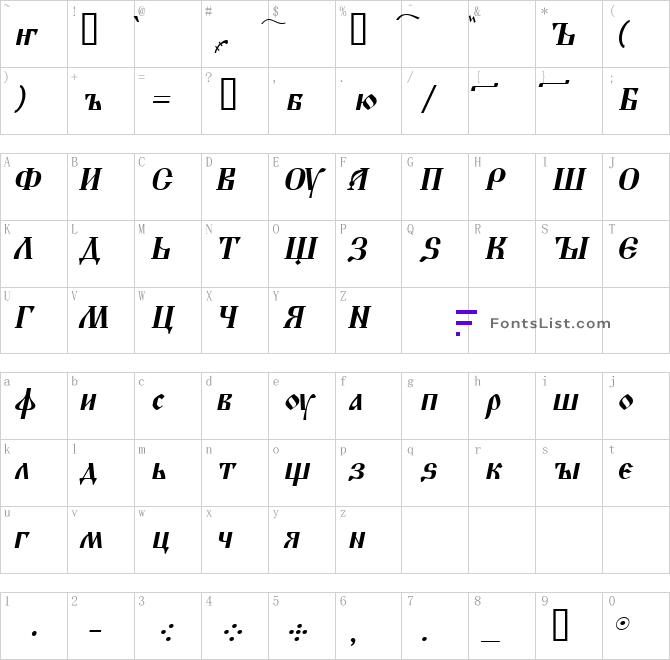
- Font Name:Altrussisch
Altrussisch-Italic.ttf is a very beautiful artistic font, Altrussisch-Italic.ttf is widely used in the design and printing of various books and pictures,Altrussisch-Italic.ttf has a strong visual impact,Altrussisch-Italic.ttf is a commonly used font in newspapers, magazines and books, and is used in posters, e-commerce Poster design, store design, logo design, font design and other fields.Altrussisch-Italic.